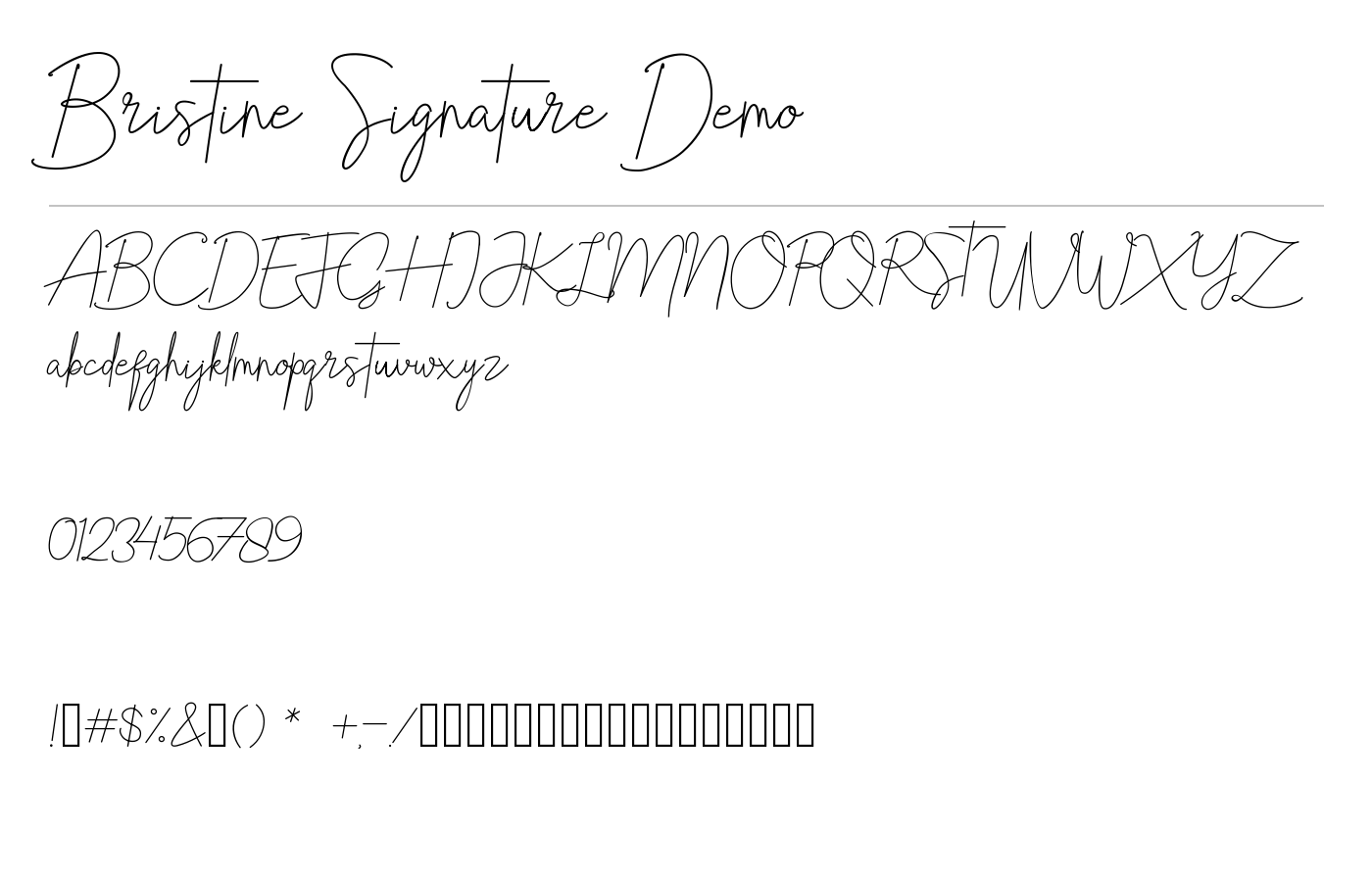
Bristine Signature Demo is a delicate, handwritten script font with a light weight and elegant, flowing strokes that mimic natural penmanship. Its slender, airy letterforms and tall x-height give it a sophisticated and personal feel, making it ideal for branding, invitations, and stylish logos that seek a modern yet intimate touch. This font works best in large sizes where its fine lines can be appreciated, adding a graceful and chic personality to any design.
Bristine Signature Demo Font
About Bristine Signature Demo Font